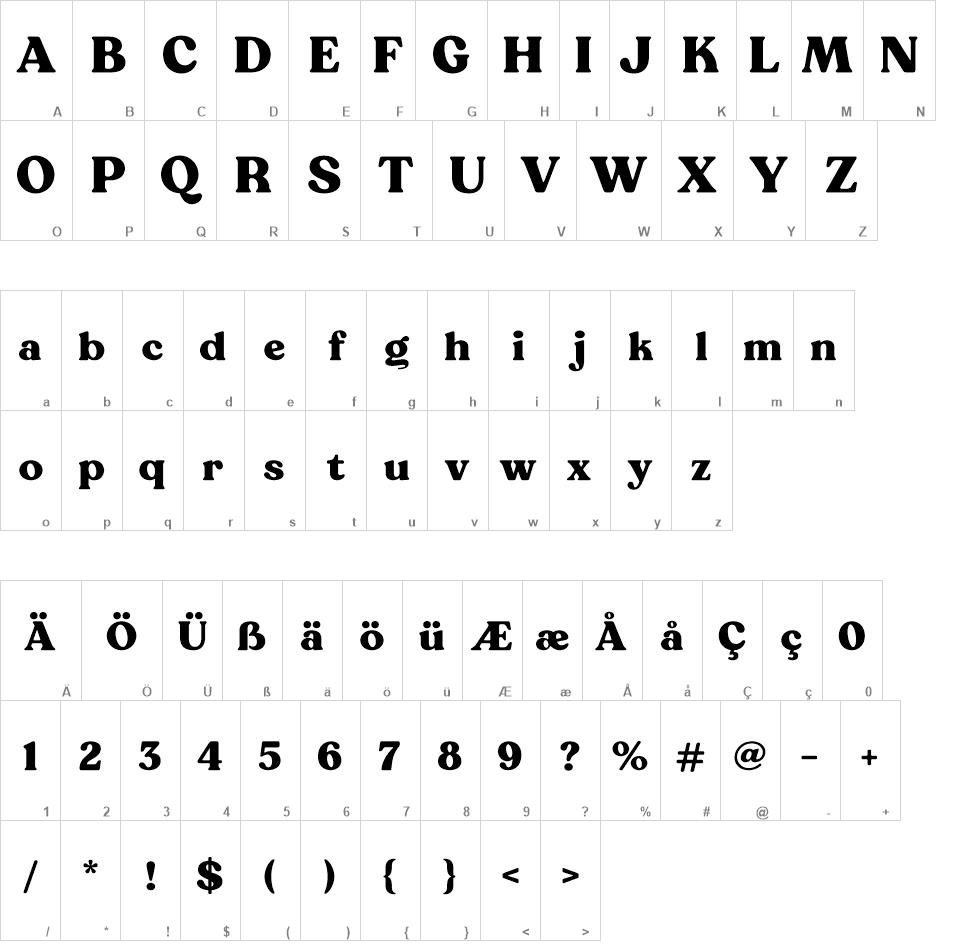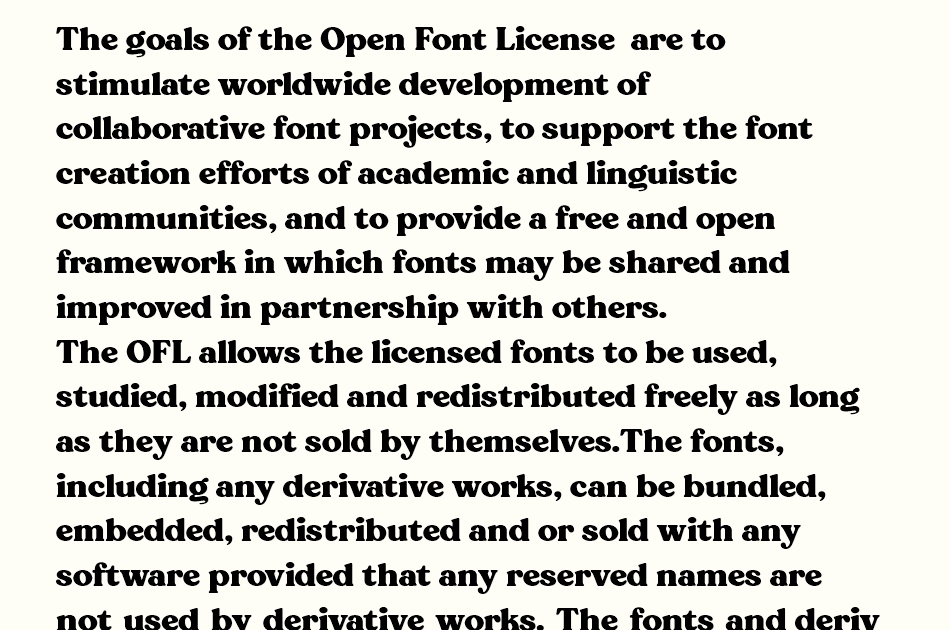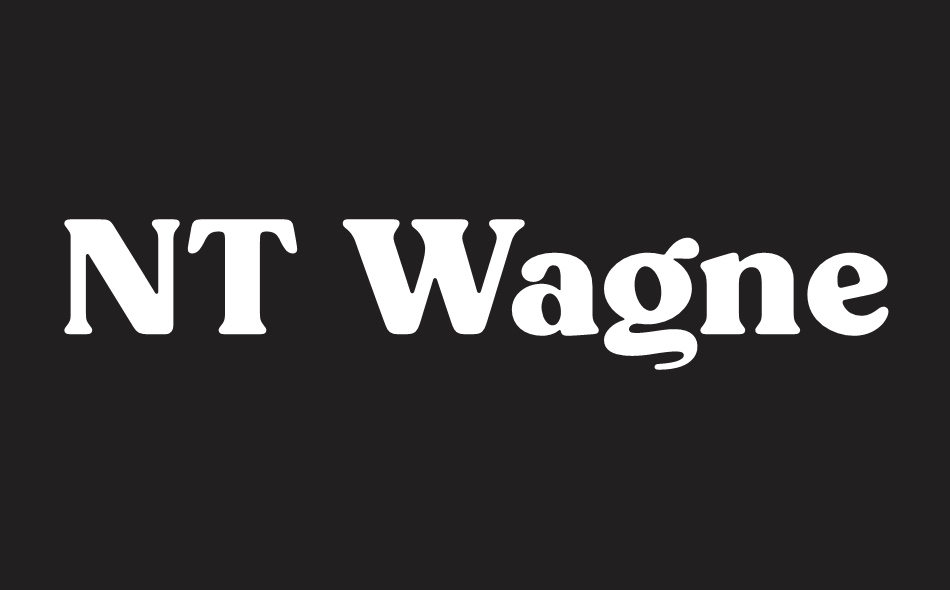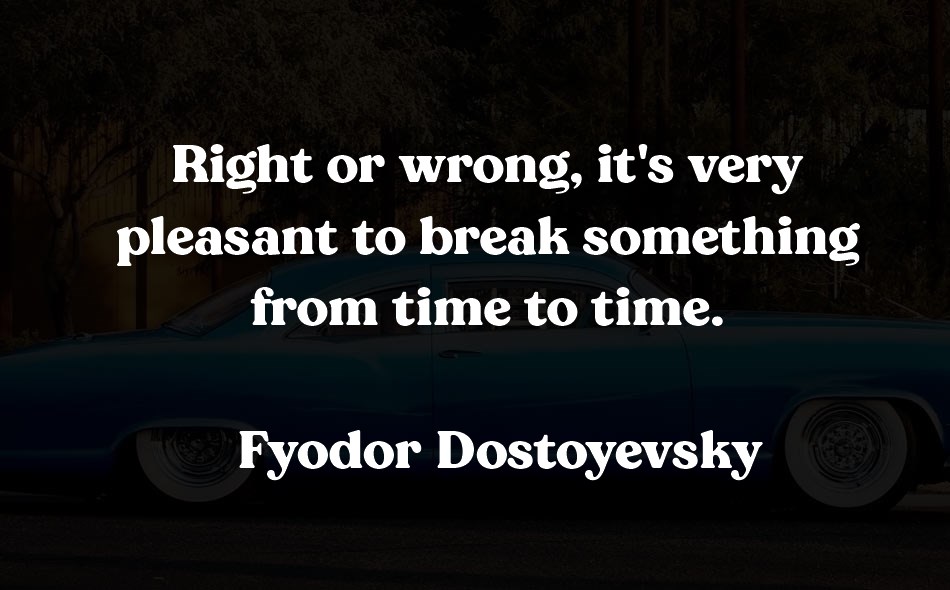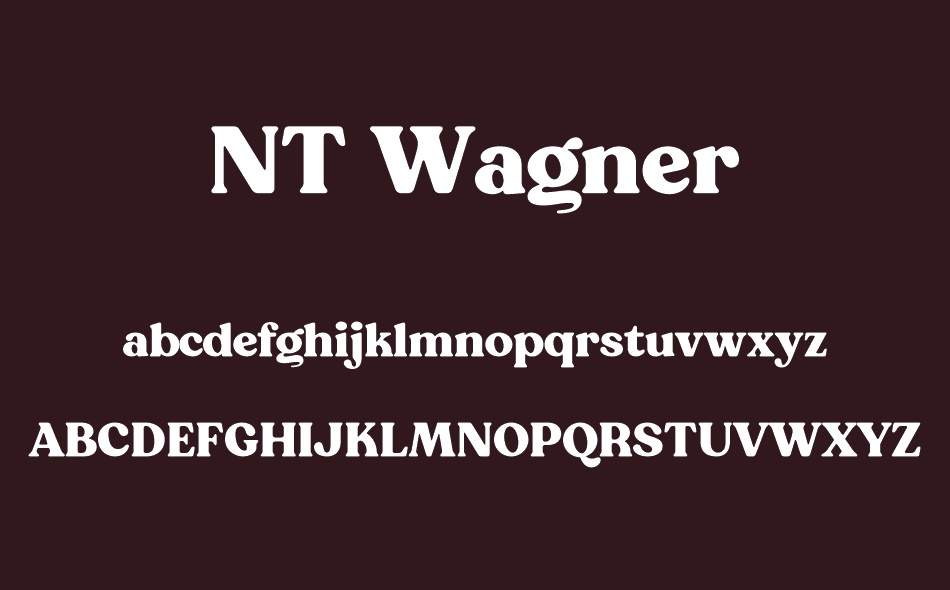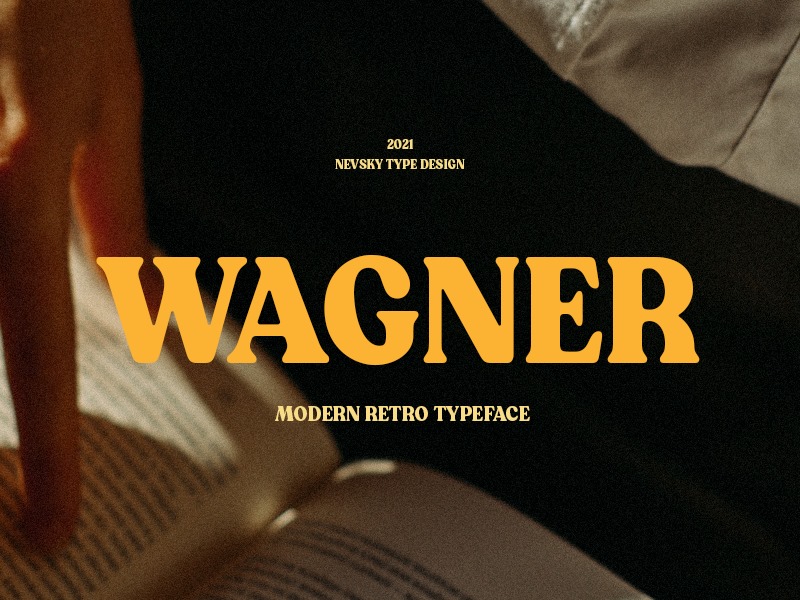
NT Wagner font
"NT Wagner" is a modern soft retro serif typeface. This font needs to be in your collection and is perfect for your next design project.
"NT Wagner" will perfect for many project: invitations, postcards, posters, book covers, advertisements, website headers, logos, magazines, fashion, branding, photography etc.
"NT Wagner" supports over 200 Latin-based languages.